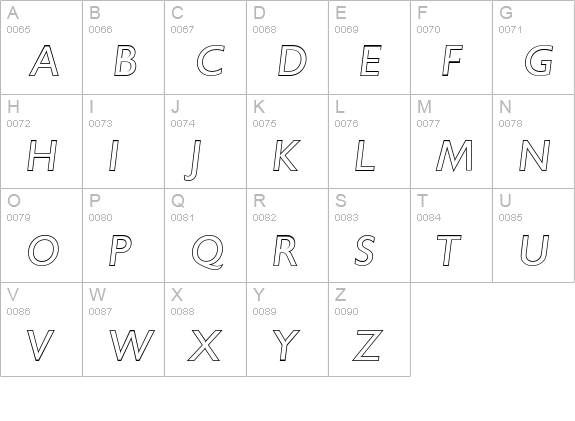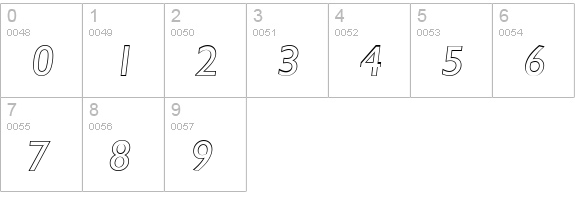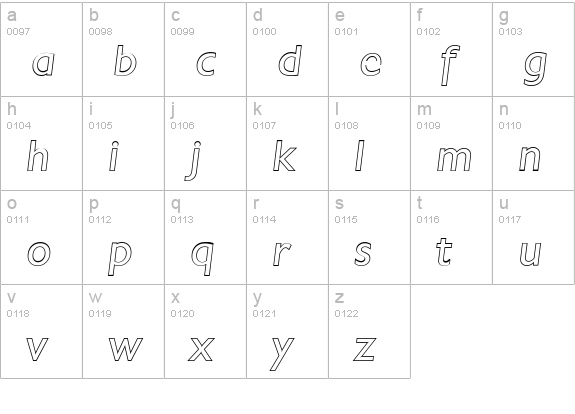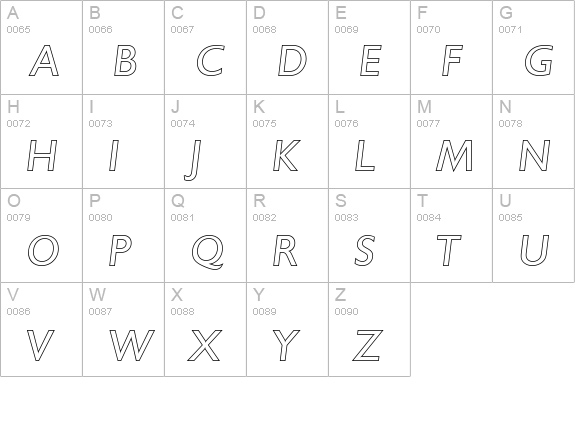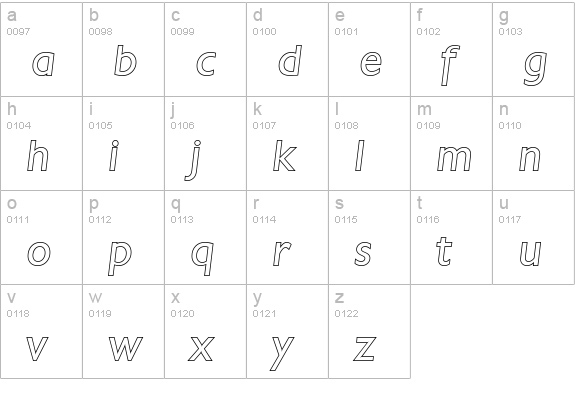
ChantillyOutline-Italic is a distinctive, italic variant in the ChantillyOutline typeface family \xE2\x80\x94 well suited to design and typography projects.
ChantillyOutline-Italic font is a stylish and elegant typeface that exudes sophistication and charm. With its delicate outlines and graceful curves, this italic font is perfect for adding a touch of elegance to your design projects. Whether you are working on a wedding invitation, a branding project, or a social media graphic, ChantillyOutline-Italic font will elevate your work to the next level. The best part? ChantillyOutline-Italic font is available for free download at FontsMarket.com. This means you can access this beautiful font without any cost, making it a valuable addition to your font collection. Don't miss out on the opportunity to enhance your designs with this stunning and versatile typeface. Download ChantillyOutline-Italic font today and elevate your creative projects to new heights.